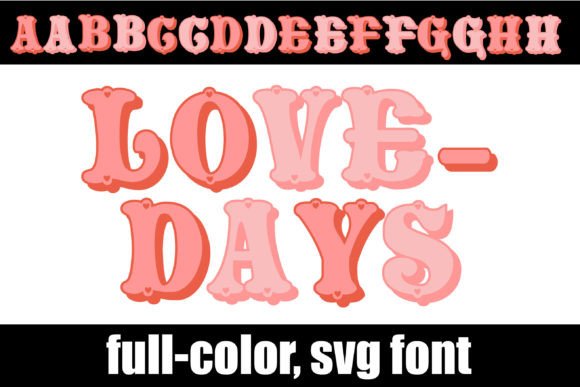
In a world where words dance and letters ignite emotions, there exists a font named Lovedays, a captivating ensemble of colorful characters that will embellish your designs with a symphony of charm and delight. Lovedays is not just a font; it's an expression of joy, a celebration of life, an ode to the beauty that surrounds us.
Feel your heart flutter with each stroke of Lovedays, a font inspired by the warmth and exuberance of love. With its vibrant palette and playful shapes, this font radiates an infectious energy that will elevate your designs to new heights. Immerse yourself in a kaleidoscope of colors as each letter bursts forth with personality, adding a touch of magic to your creations.
Lovedays is a font that speaks to the dreamer in all of us, reminding us of the infinite possibilities that lie within our hearts. Its enchanting design evokes a sense of wonder and childlike curiosity, inviting us to explore the depths of our imagination and bring our dreams to life. Whether you're crafting heartfelt messages, designing whimsical illustrations, or adding a dash of whimsy to your branding, Lovedays is the perfect companion.
Discover the boundless versatility of Lovedays, a font that knows no limits. Its meticulously crafted characters dance effortlessly across a multitude of projects, from heartfelt love letters and vibrant social media posts to eye-catching logos and captivating marketing materials. With Lovedays, your designs will blossom into a symphony of colors and emotions, leaving an unforgettable impression on your audience.
Unleash the power of Lovedays and witness the transformation of your designs. This font is a catalyst for creativity, igniting a spark of inspiration that will illuminate your artistic journey. Embrace the vibrant spirit of Lovedays and let your imagination soar, knowing that you possess a font that truly captures the essence of love, joy, and boundless creativity.